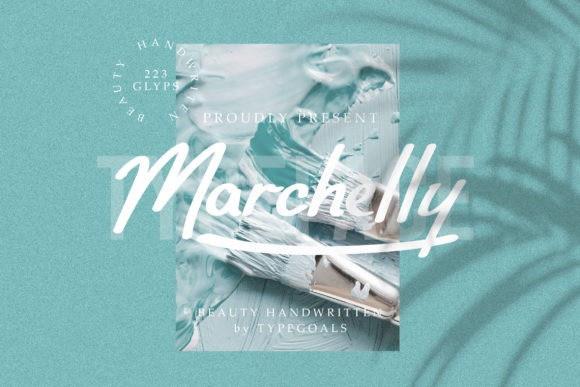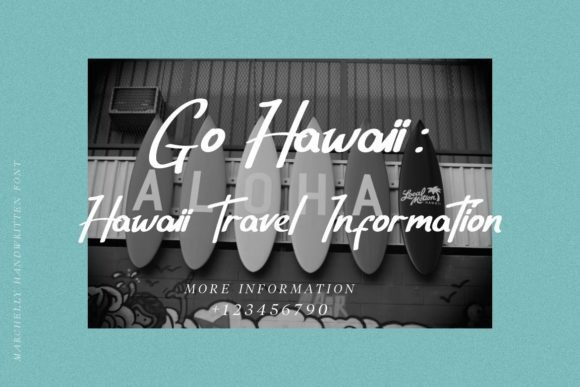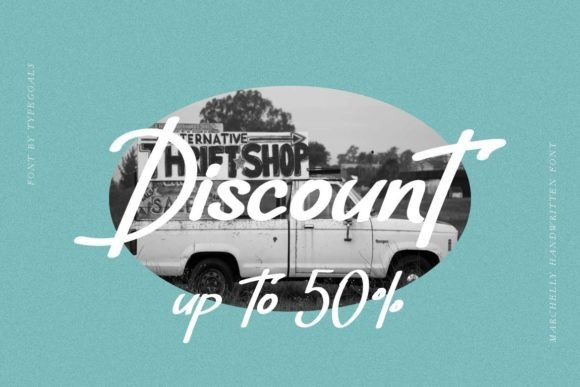
Marchelly Font
Marchelly is a simple, well balanced and beautiful script font. Its sweet and full of life style makes this font a wonderful choice for brightening up your designs.